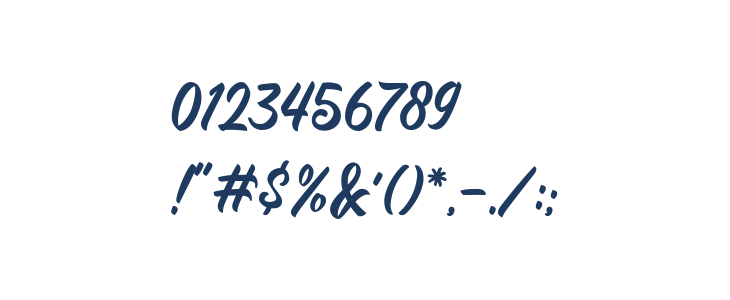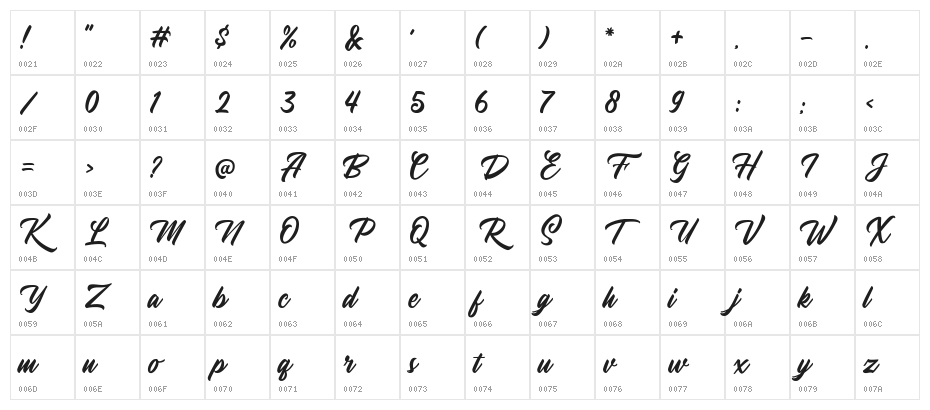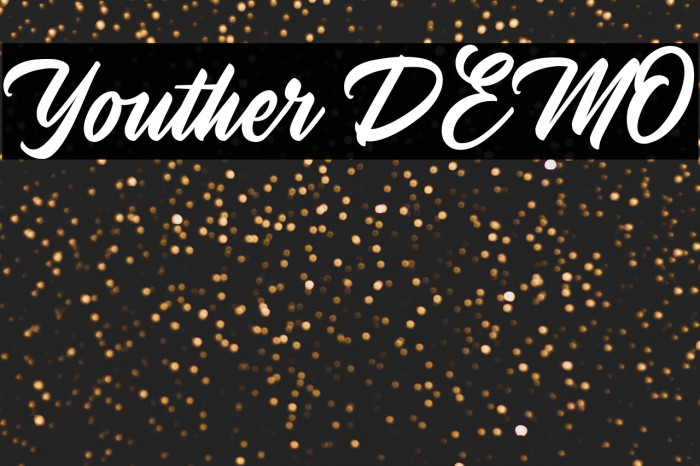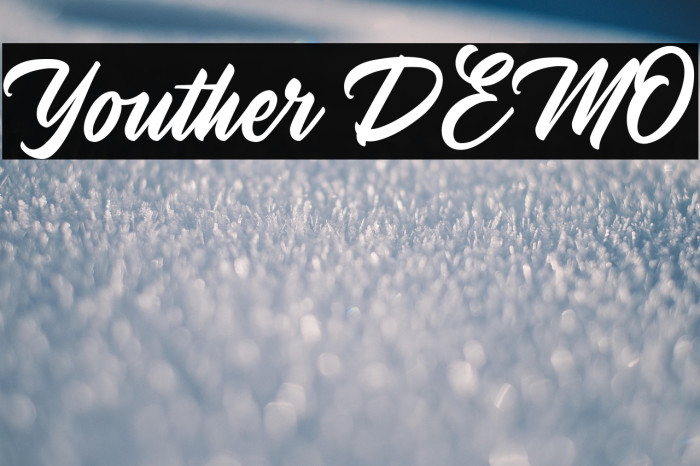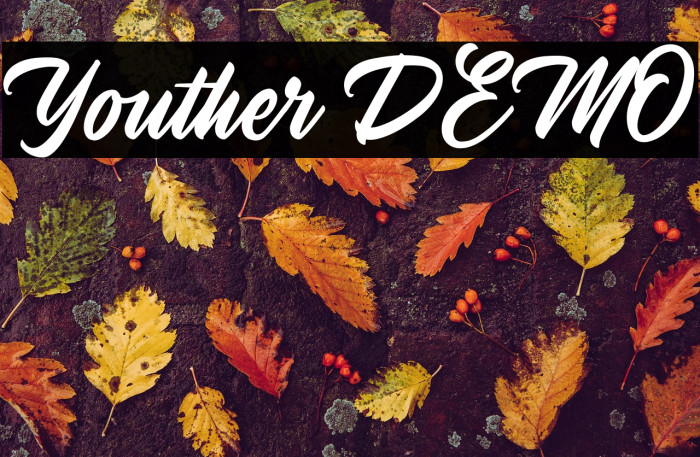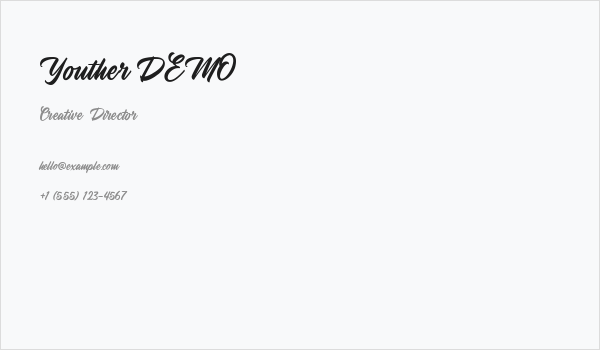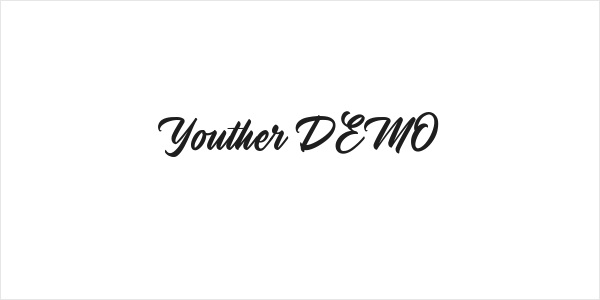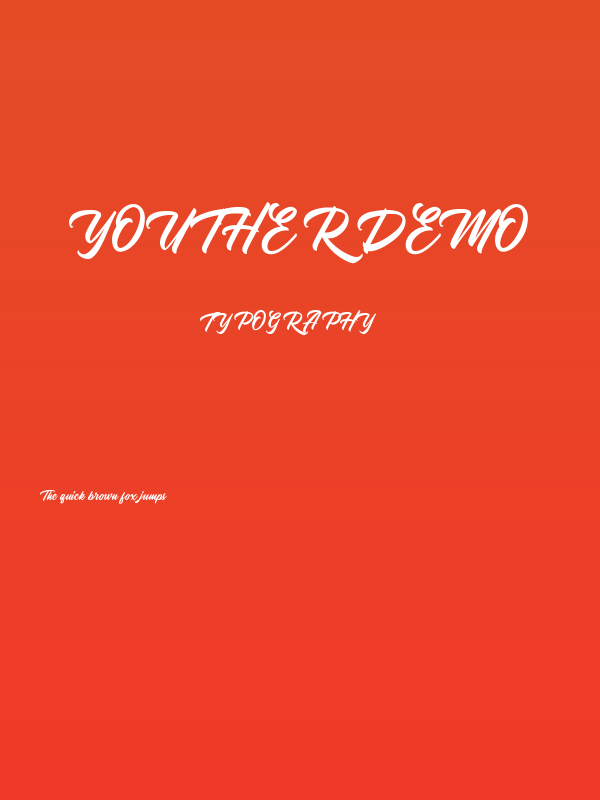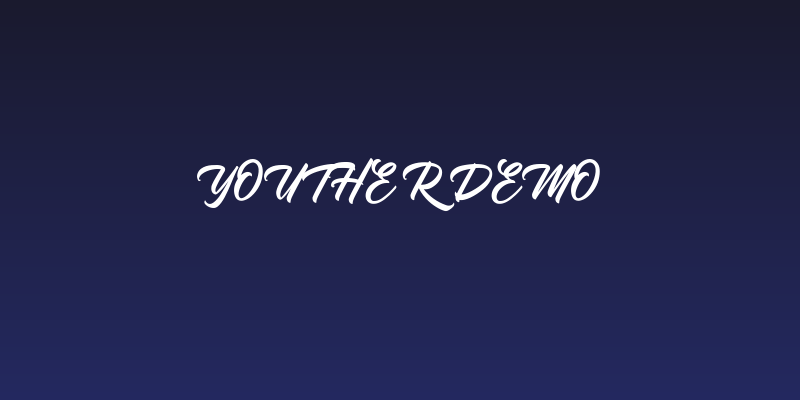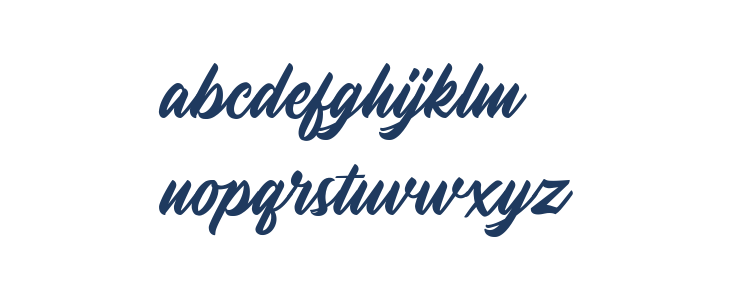
YoutherDEMO Font
YoutherDEMO Description
This font features a bold, cursive style with a flowing, handwritten appearance. The uppercase letters are elegantly connected, while the lowercase letters maintain a consistent slant, adding to the fluidity of the design. The numerals are distinct and maintain the same cursive style, ensuring readability. Special characters are well-integrated, matching the overall aesthetic. The strokes are thick, providing a strong visual impact, and the character spacing is tight, enhancing the cohesive look of the text. This font exudes a sense of elegance and dynamism, making it suitable for creative and expressive projects.
Use CaseLogos, Headlines, Invitations
Proposed ProjectsIdeal for wedding invitations, greeting cards, branding, and logo design.